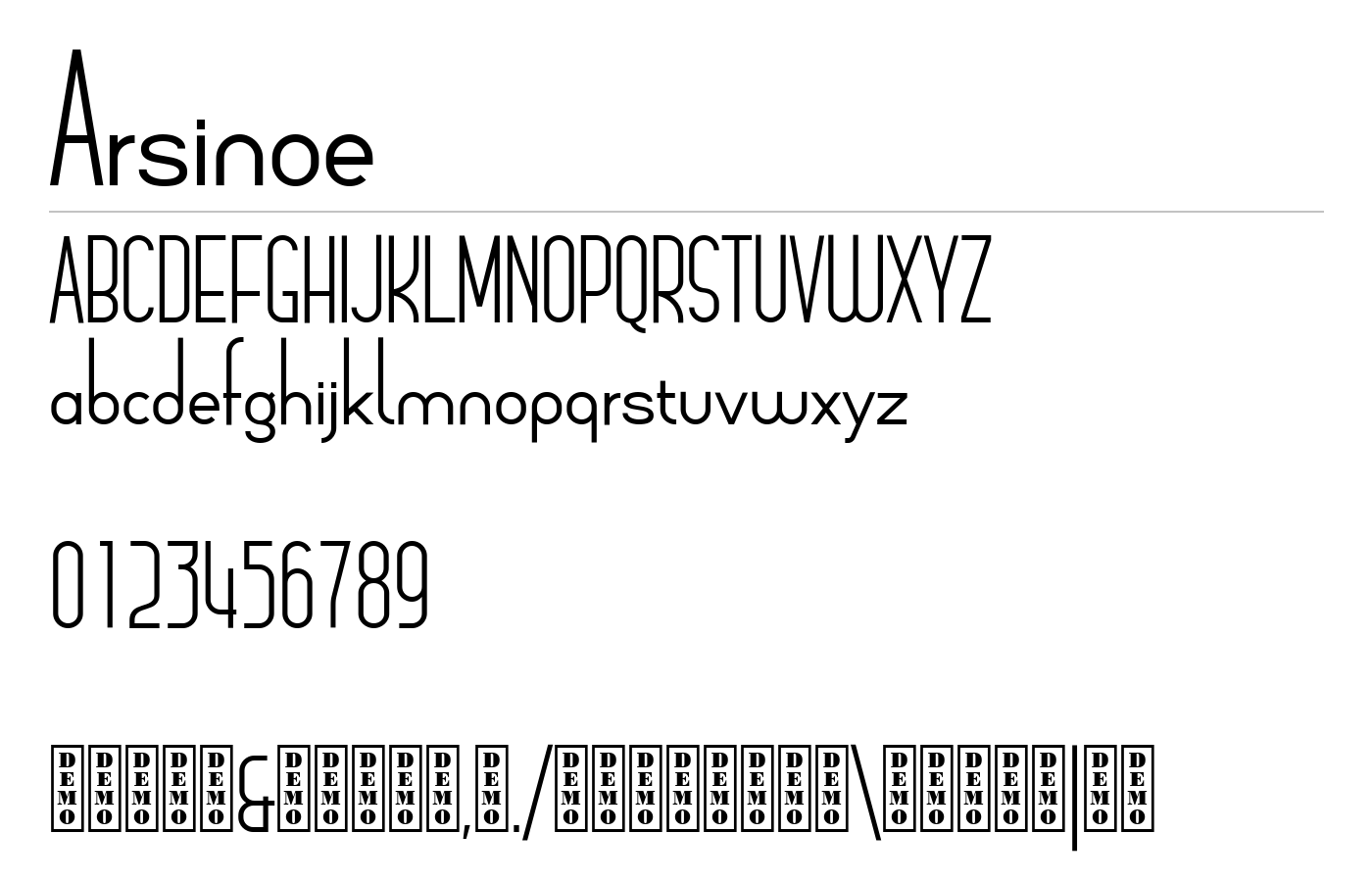
Arsinoe is a slender, modern sans serif font featuring a tall x-height and ultra-condensed letterforms that create an elegant, minimalist look. Its consistent stroke weight with subtle geometric touches gives it a refined and contemporary feel, making it ideal for sleek branding, fashion headlines, and stylish editorial design where a narrow yet readable typeface is desired. This font’s clean lines and distinctive shapes add sophistication without overpowering, perfect for conveying a chic and modern aesthetic.
Arsinoe Font
About Arsinoe Font
| Designer | Pawel Burgiel |